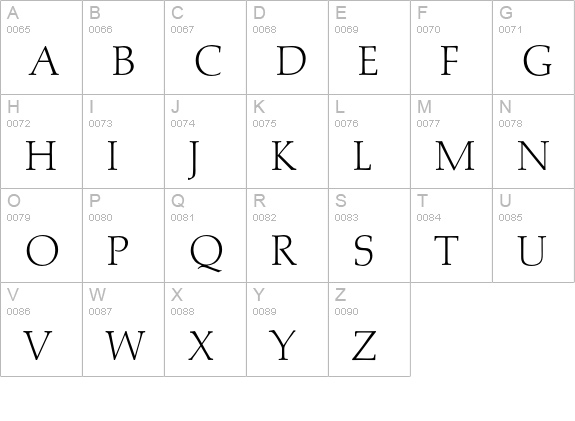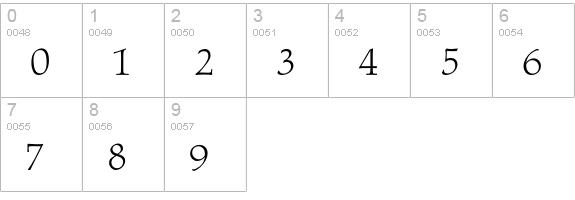
Marathon-Xlight Font Details
Marathon-Xlight font is a stunning display font that exudes elegance and sophistication. With its sleek and slender letterforms, this font is perfect for adding a touch of modernity to any design project. Whether you're creating a logo, a headline, or simply adding a stylish flair to your text, Marathon-Xlight font will effortlessly elevate your design. What's even more remarkable about Marathon-Xlight font is that it is absolutely free. Yes, you read that right! This incredible font is freely available to download at FontsMarket.com. Now you can enhance your creative endeavors without worrying about breaking the bank. This generous offer allows designers, artists, and enthusiasts alike to access a high-quality font that will make their work shine. The Marathon-Xlight font features a wide range of characters, including uppercase and lowercase letters, numbers, punctuation marks, and special symbols. Its clean and minimalist design ensures readability and versatility across various platforms, making it suitable for both digital and print mediums. Whether you're designing a website, a poster, a book cover, or any other project that requires a touch of finesse, Marathon-Xlight font is the perfect choice. Its graceful curves and impeccable spacing will captivate your audience and leave a lasting impression. Don't miss out on this incredible opportunity to enhance your creative repertoire. Download Marathon-Xlight font for free at FontsMarket.com and unlock a world of possibilities. With its exceptional quality and accessibility, Marathon-Xlight font is a valuable addition to any designer's toolkit. Let your creativity soar with this remarkable font and watch your designs come to life.